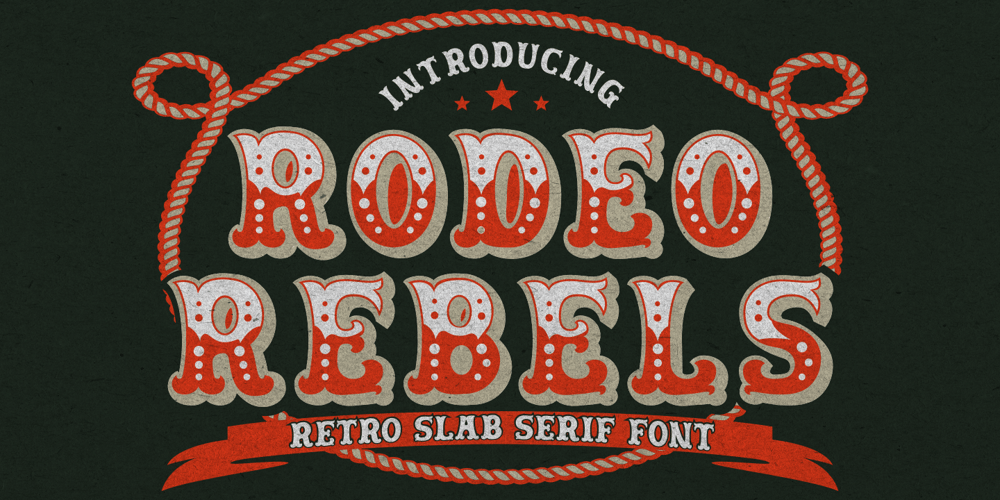
Rodeo Rebels Font Family was designed by Putra Novembria Candra Kusuma and published by Putracetol. Rodeo Rebels contains 2 styles and family package options. Rodeo Rebels is a display typeface with a retro, cowboy, and western theme. It’s perfect for designs that require a bold and masculine touch, such as branding, packaging, posters, and headlines. The font was inspired by vintage rodeo posters and the American Old West, where bold, slab-serif typography was a common sight.To make the most out of Rodeo Rebels, consider using it in designs that require a rugged and tough aesthetic, such as clothing and apparel, whiskey and beer packaging, and Western-themed events. Pairing it with other vintage-inspired elements, such as distressed textures and illustrations, can also help create a cohesive look and feel.With its bold and rugged aesthetic, Rodeo Rebels is a font that demands attention. It’s perfect for projects that require a vintage and masculine vibe, and its features make it a versatile choice for a wide range of designs. Give your projects a touch of the American Old West with Rodeo Rebels, and let its bold and rugged style do the talking.